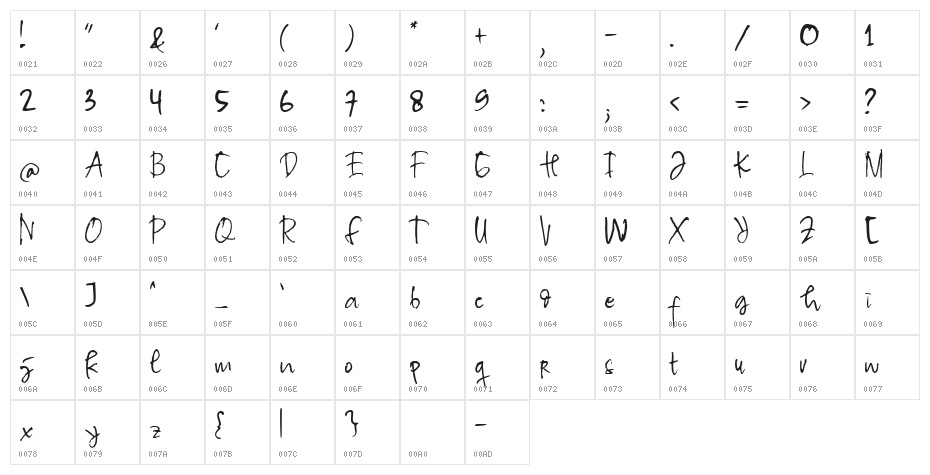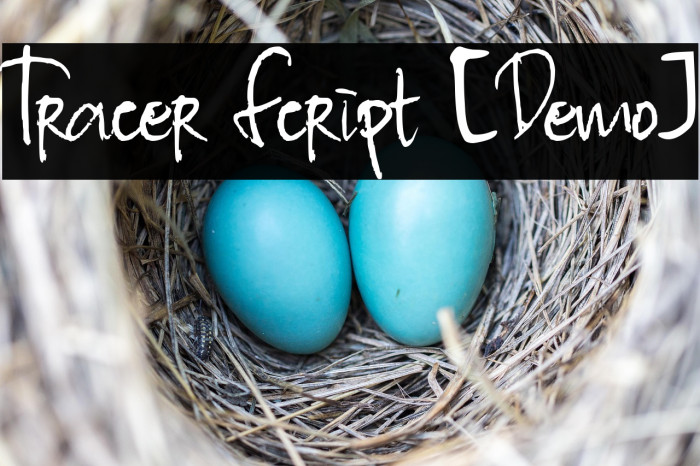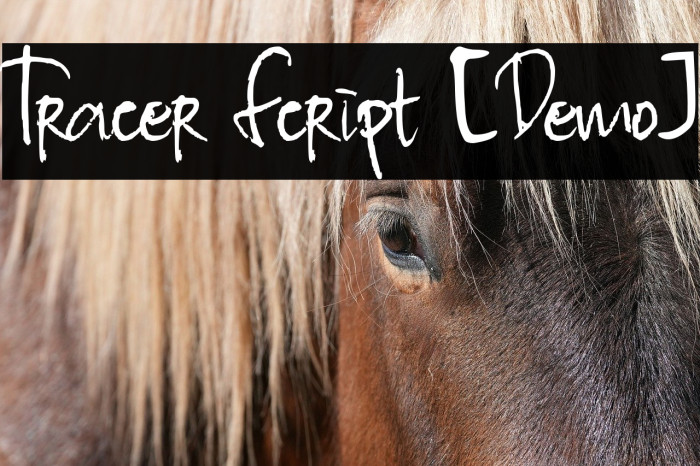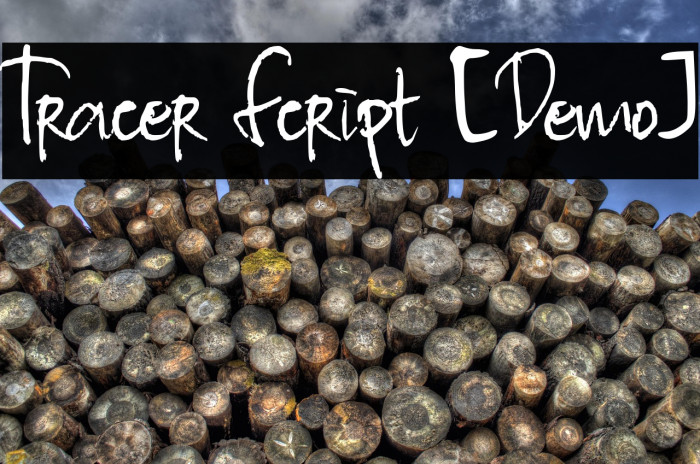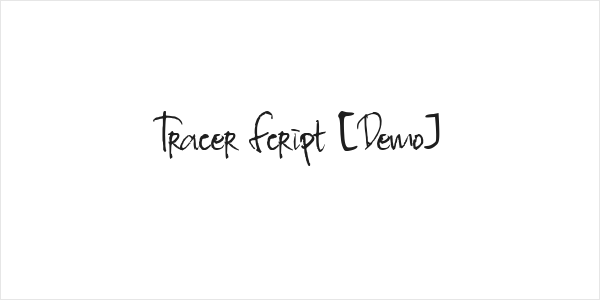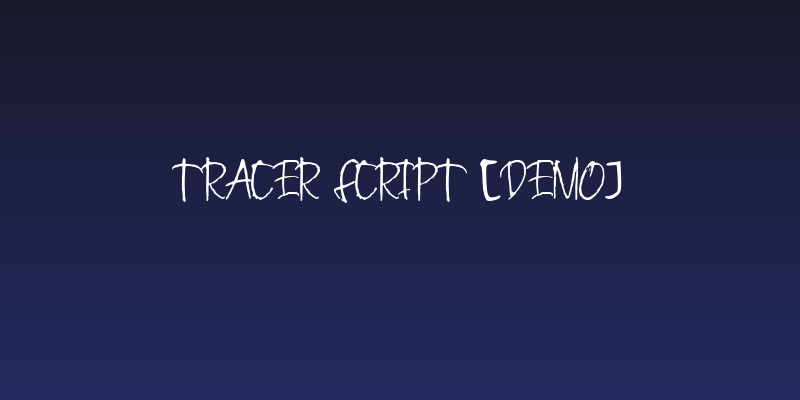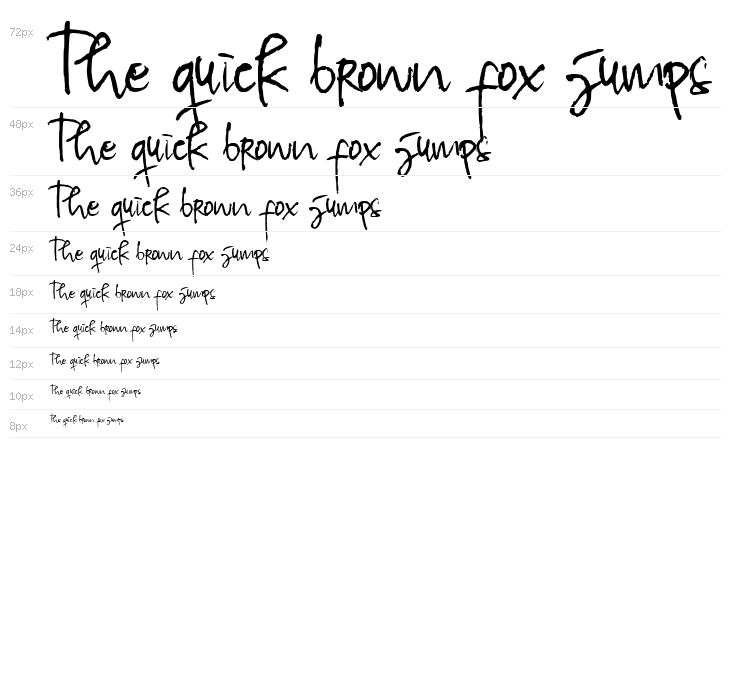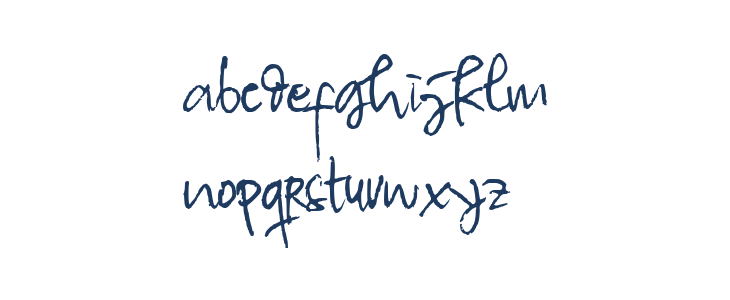
Tracer Script [Demo] Font
Tracer Script [Demo] Description
This font features a dynamic and expressive script style, characterized by its fluid and spontaneous strokes. The uppercase letters exhibit a bold and energetic flair, while the lowercase letters maintain a consistent flow, adding a touch of elegance and creativity. The numerals are well-integrated, matching the overall aesthetic with their playful curves. Special characters are crafted with the same attention to detail, ensuring a cohesive look across all glyphs. The font's hand-drawn appearance gives it a personal and artistic touch, making it ideal for projects that require a unique and engaging visual impact.
| Use Case | Logos, Headlines, Artistic projects |
| Proposed Projects | Ideal for creative projects such as invitations, greeting cards, branding, and artistic posters. |